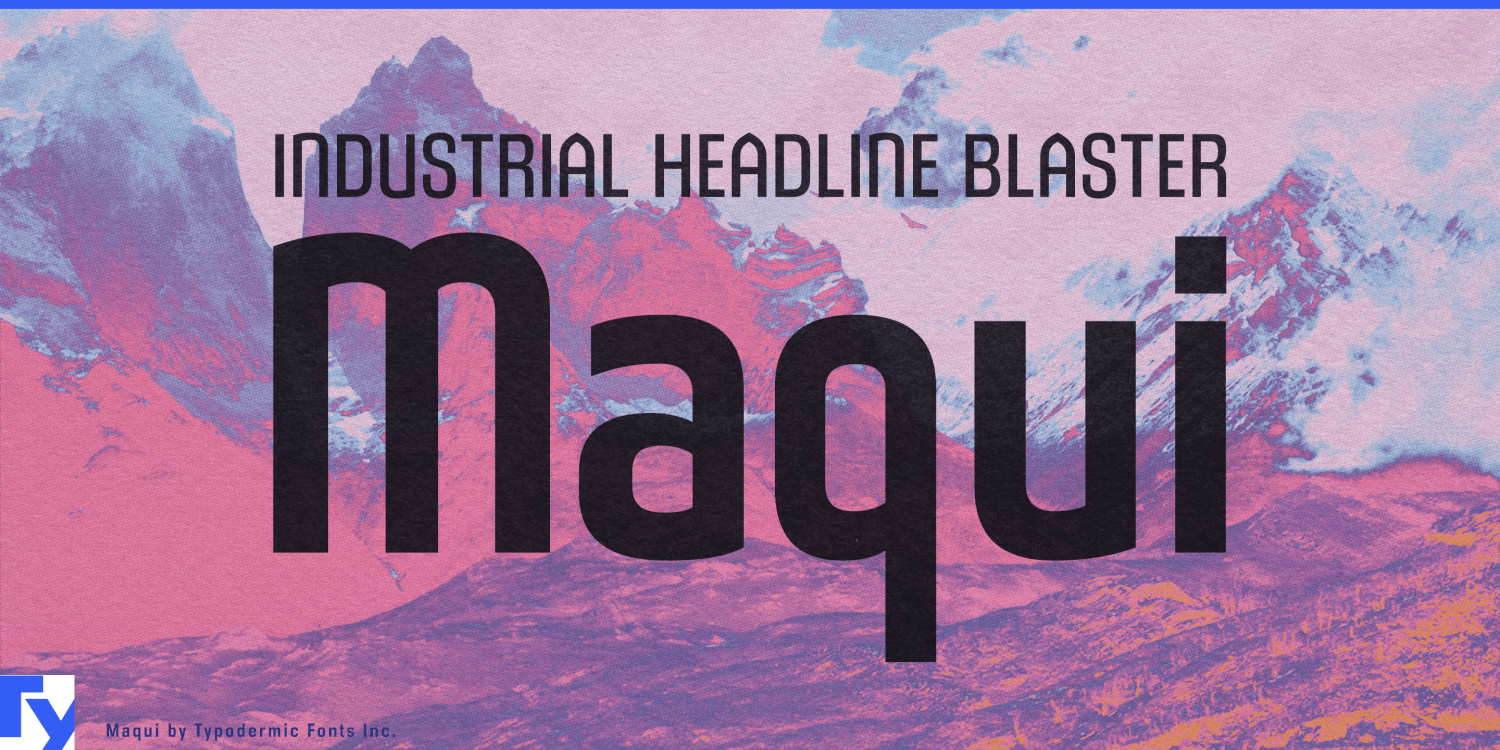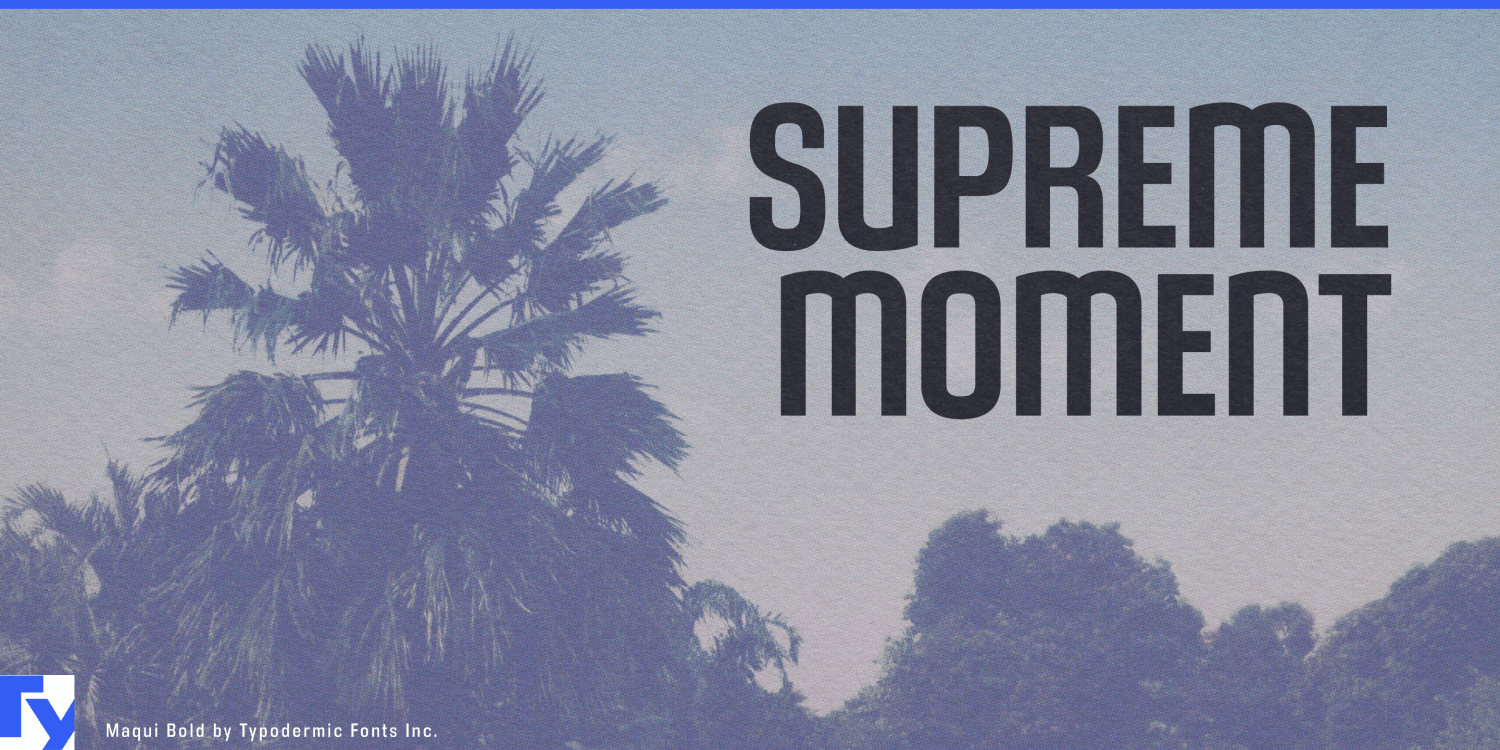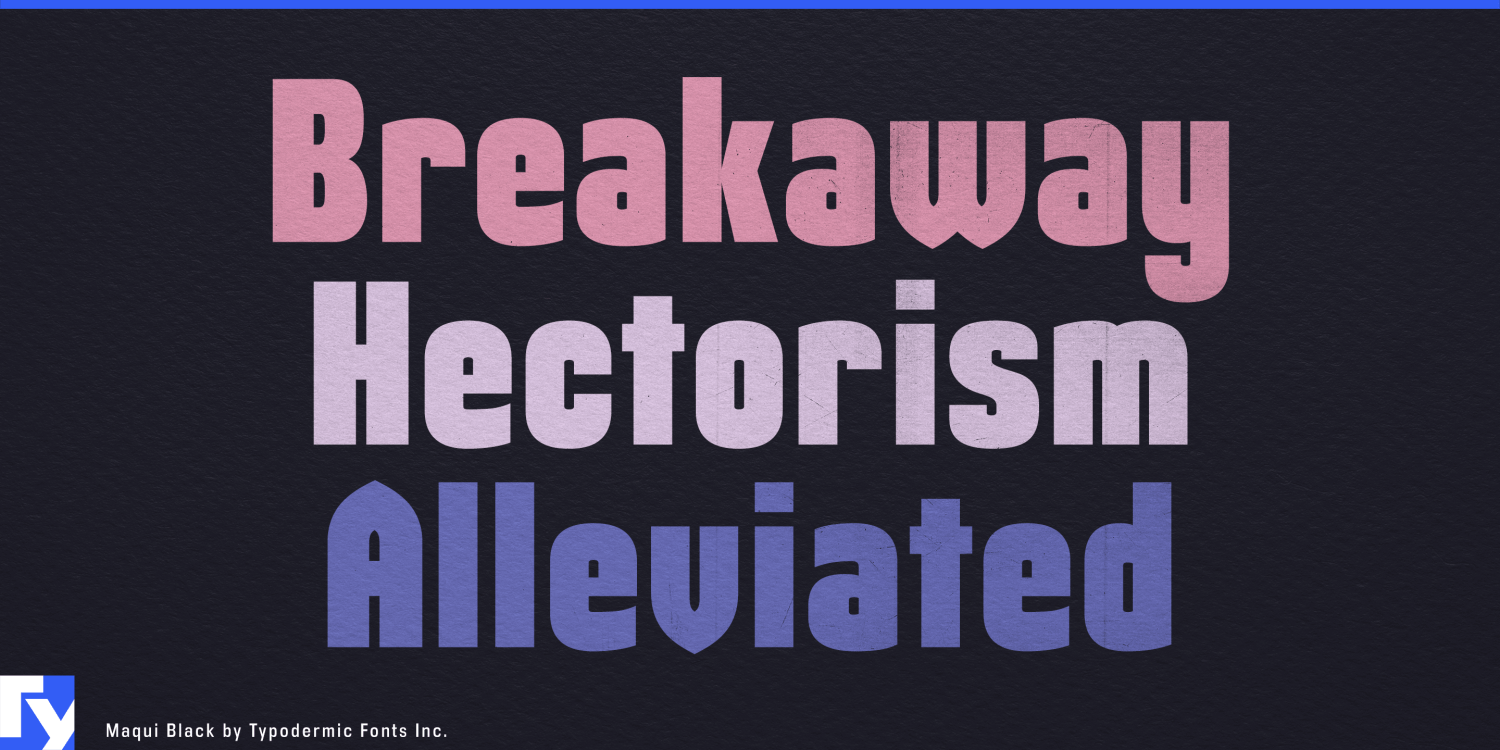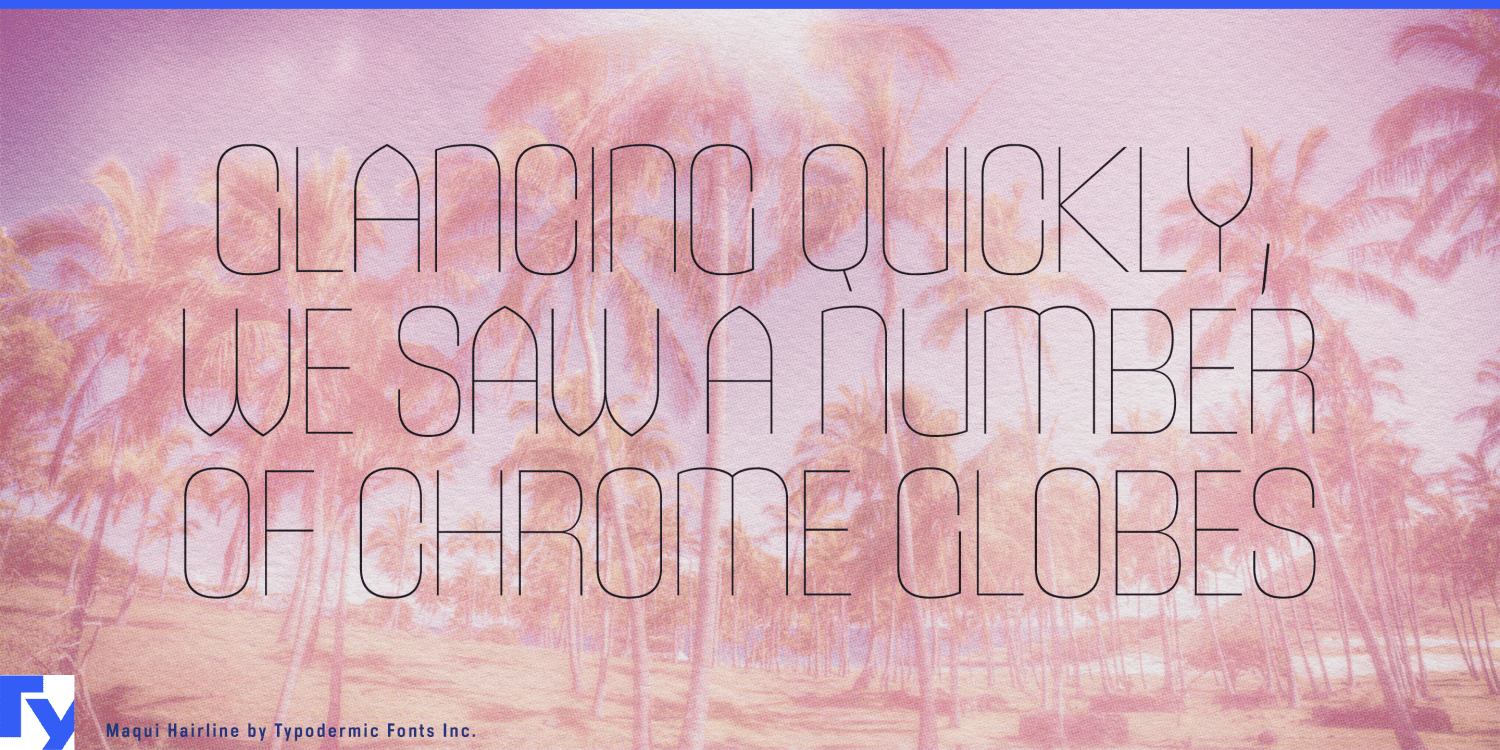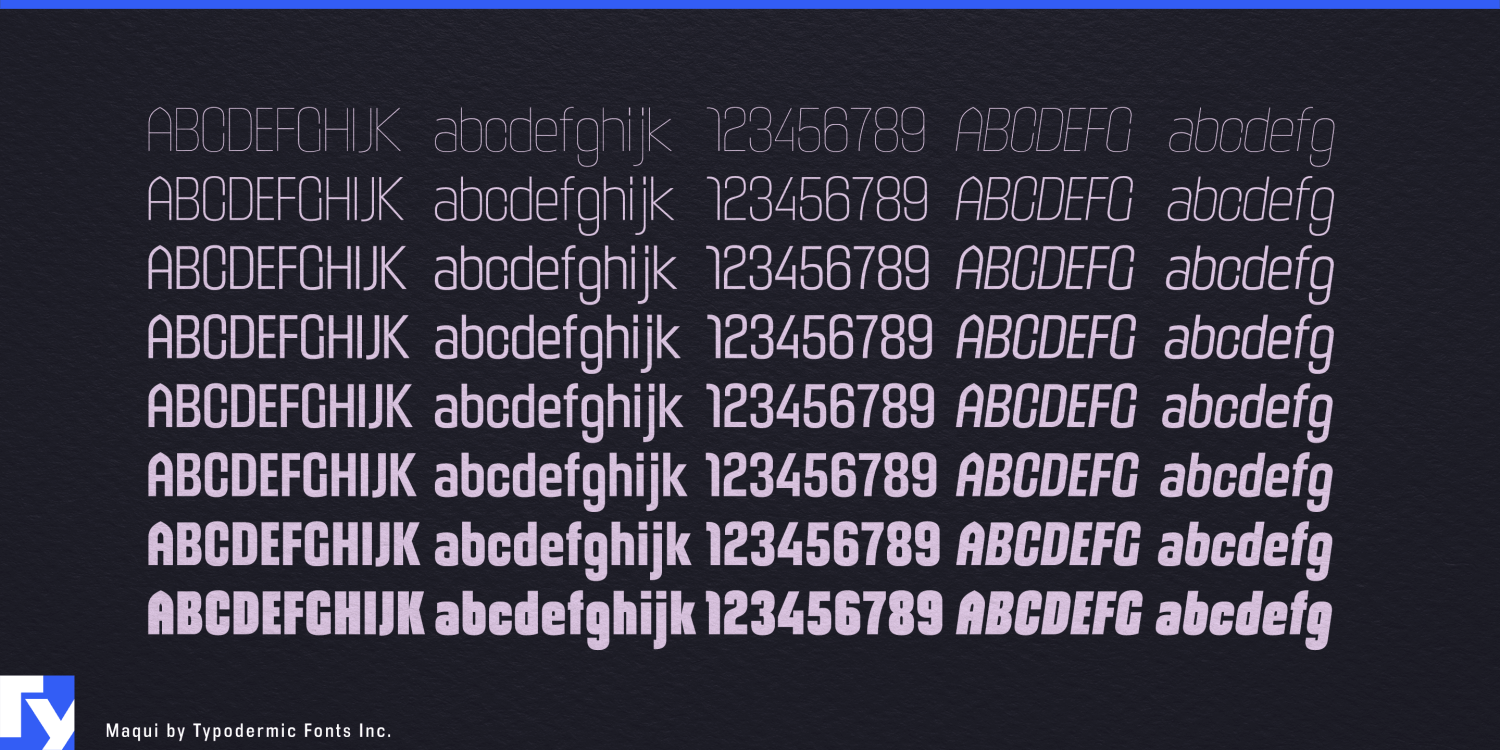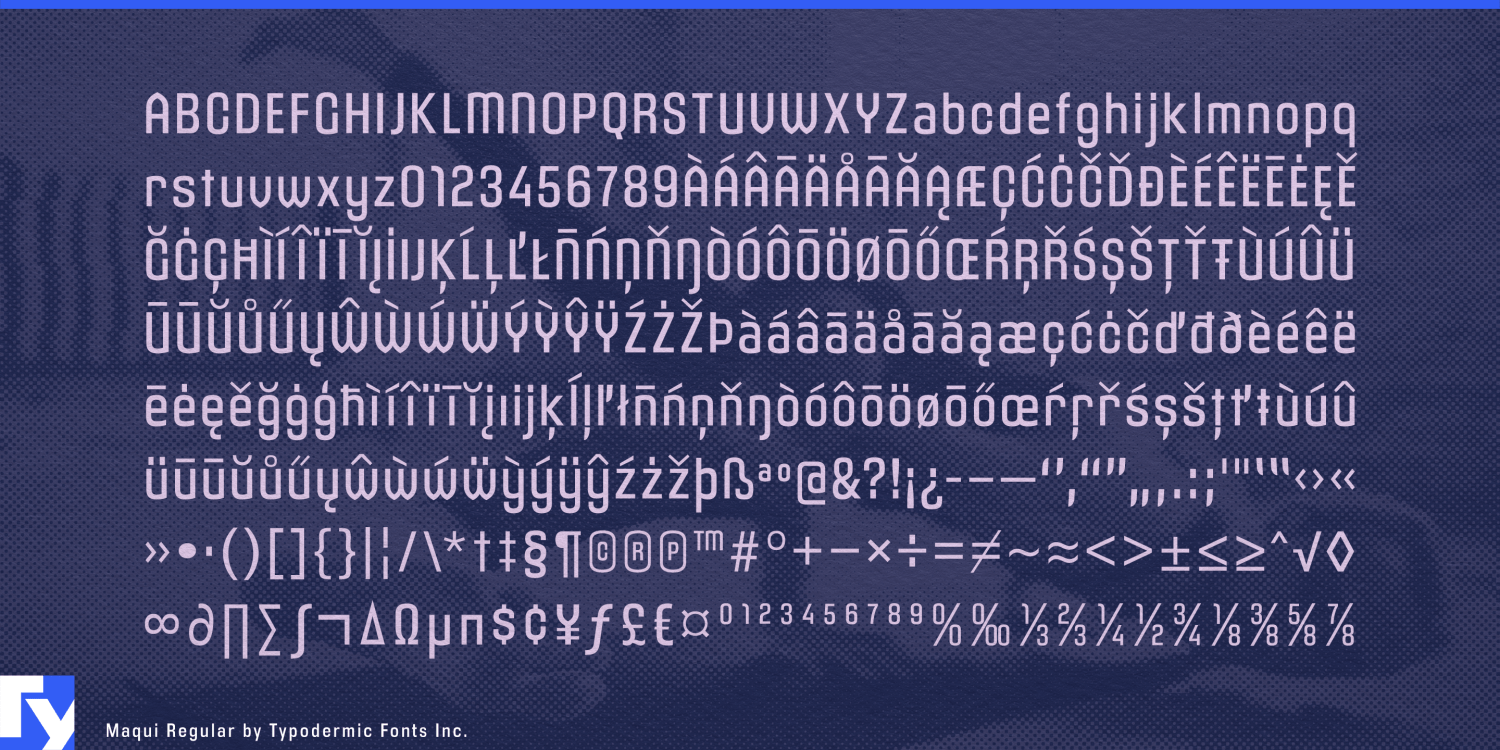
Maqui
Font Family by Typodermic
Technology branding often ages faster than the technology itself. Push a typeface too far toward sci-fi and serious equipment starts to look speculative; retreat to a generic corporate sans and every manufacturer begins to resemble everyone else. Maqui offers a quieter alternative: a compact, minimalist display family with enough architectural character to look deliberate without turning typography into the product.